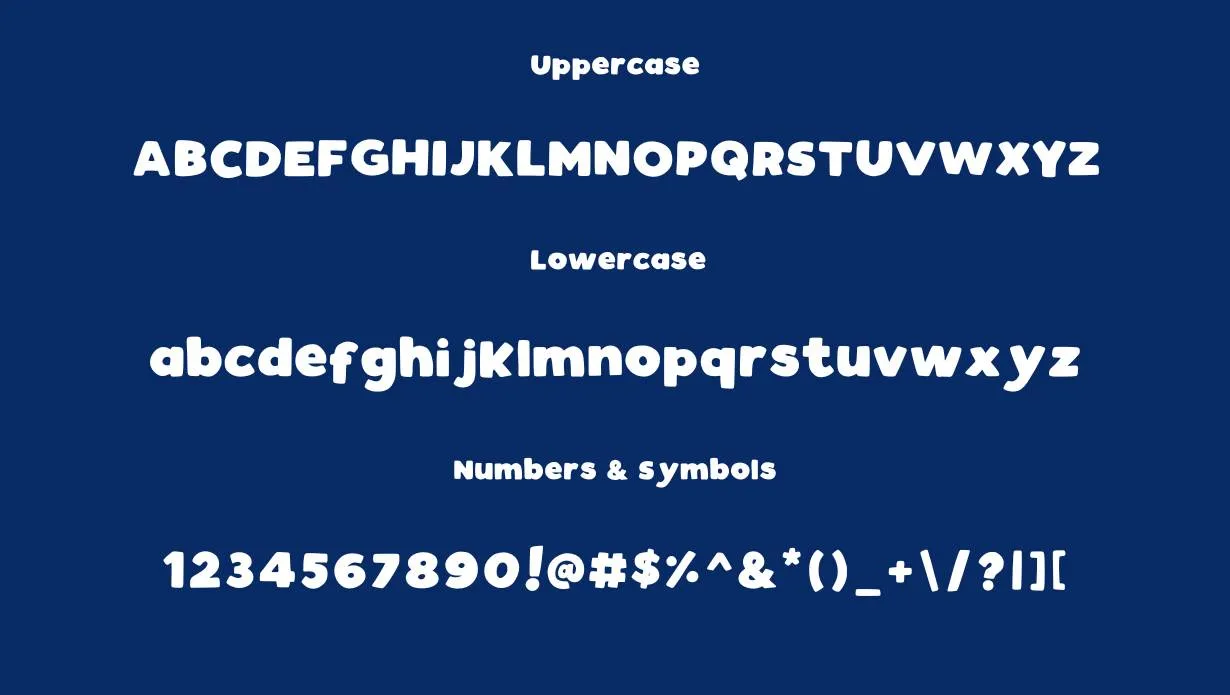
Watermelon Bold Font is a playful and decorative typeface known for its whimsical and imaginative design. It’s often used in children’s books, party invitations, and creative branding, bringing a touch of charm and creativity to the visuals.
The font’s unique and quirky letterforms add a sense of wonder and joy to your design work.